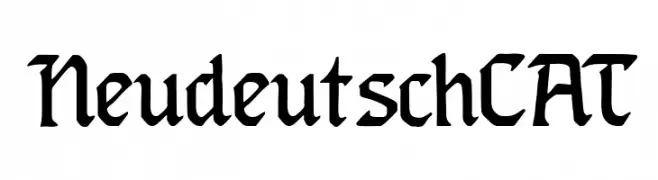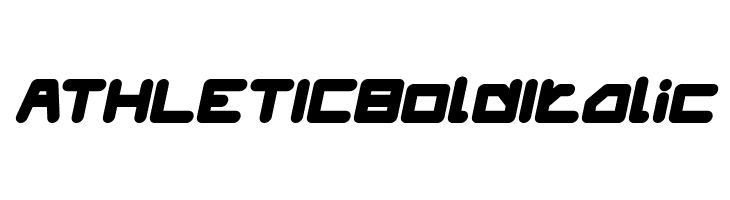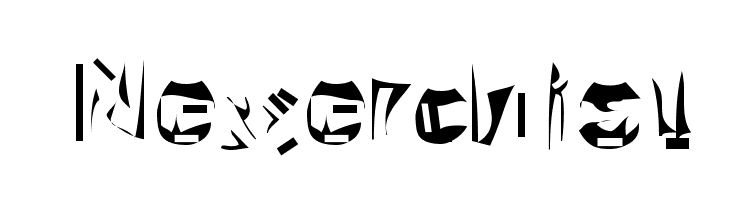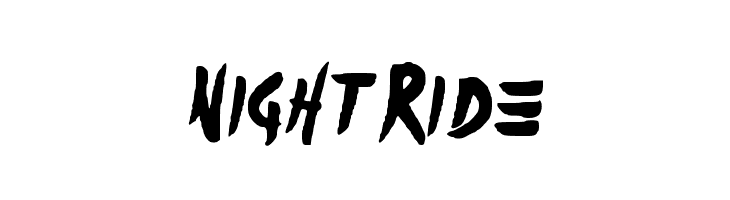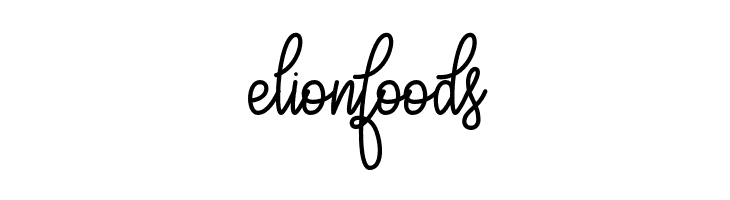
( Fonts by Hanken Design Co. )
A modern, geometric sans-serif font with clean lines and balanced proportions.
( Fonts by Iconian Fonts - Daniel Zadorozny )
A bold, italic, futuristic font with a double-layered outline and geometric shapes.
( Konstantine Studio - konstantinestudio.com/ )
A flowing, elegant script font with a modern touch and decorative uppercase letters.
A bold, angular font with a blackletter style, ideal for historical or gothic-themed projects.
( Fadhil Aqsa - creativemarket.com/Meutuwah )
A delicate and flowing script font with elegant cursive letterforms.
( Fonts by ShyFonts )
A bold, pixelated, oblique font with a retro digital style.
A modern, geometric sans-serif font with consistent stroke widths and clean lines.
A playful, casual handwritten font with irregular strokes and a personal touch.
( گالری فانت فارسی پژوهش آريانا - only compatible with Farsi and Arabic )
An artistic and modern font with elegant curves and unique character shapes.
A playful handwritten slab serif font with a whimsical and approachable style.